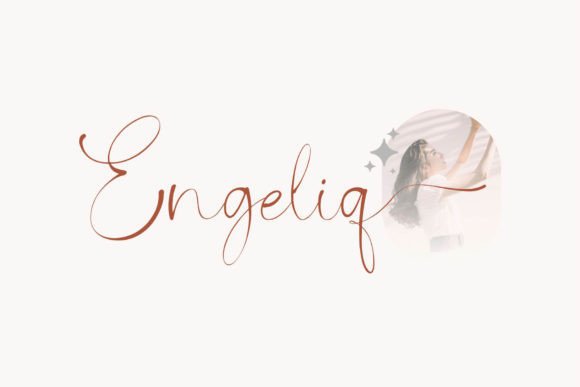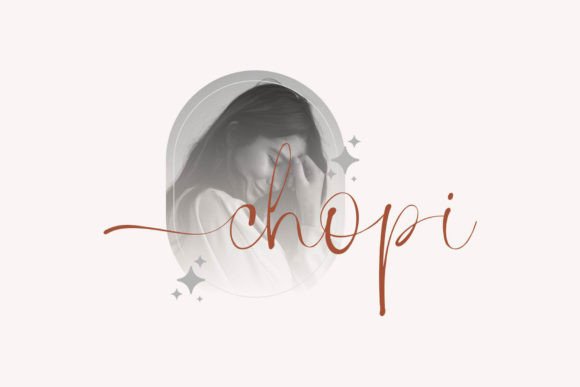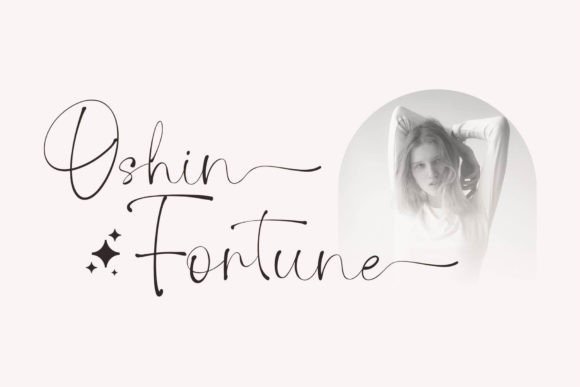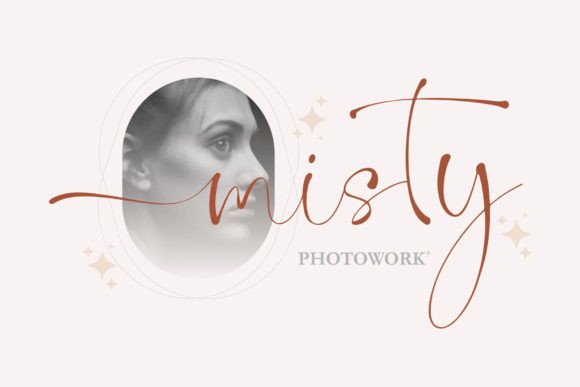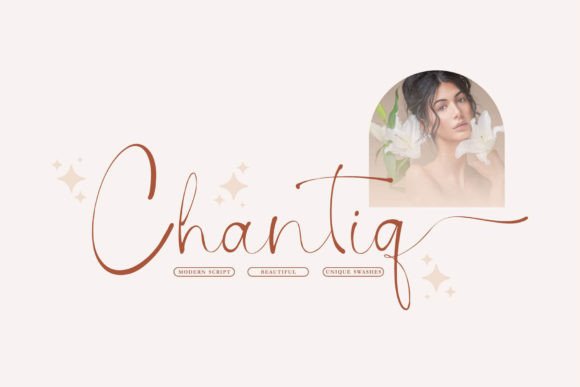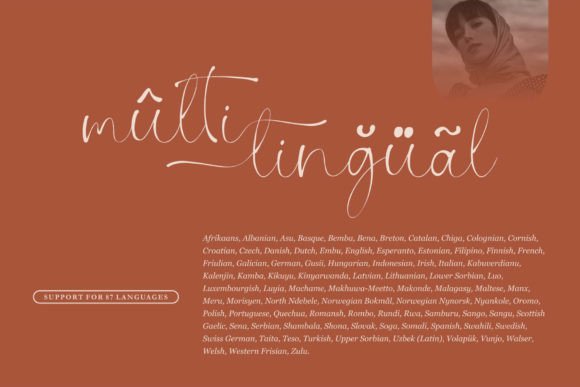
Introducing Gispon Font: The Ultimate Romantic Script Font for Designers
Are you tired of using the same old fonts for your designs? Look no further! Gispon Font is a romantic and unique script font that is sure to take your creative ideas to the next level. With its elegant and sophisticated design, Gispon Font is perfect for a wide range of design projects, from wedding designs and romantic events to headlines, billboards, magazines, websites, titles, posters, branding, T-shirts, logos, and more.
A Font that Exudes Romance and Elegance
Gispon Font is a masterfully designed script font that exudes romance and elegance. Its unique and flowing lines make it perfect for designs that require a touch of sophistication and glamour. Whether you’re creating a wedding invitation, a romantic poster, or a luxury brand logo, Gispon Font is sure to impress. Its romantic and whimsical feel will add a touch of magic to any design, making it a must-have font for designers and crafters.
One of the best things about Gispon Font is its versatility. It can be used for a wide range of design projects, including:
- Wedding designs: Create beautiful wedding invitations, save-the-date cards, and wedding stationery with Gispon Font.
- Romantic events: Use Gispon Font to create posters, flyers, and social media graphics for romantic events, such as Valentine’s Day or anniversary celebrations.
- Headlines and billboards: Make a statement with Gispon Font on your headlines and billboards.
- Magazines and websites: Add a touch of elegance to your magazine or website with Gispon Font.
- Logos and branding: Use Gispon Font to create a unique and memorable logo for your brand.
- T-shirts and merchandise: Create stunning T-shirts, mugs, and other merchandise with Gispon Font.
- Access a wide range of glyphs and swashes to add variety to your designs.
- Easily customize your designs to fit your brand’s style and aesthetic.
Why Choose Gispon Font?
So why choose Gispon Font over other script fonts? Here are just a few reasons:
- Unique and romantic design: Gispon Font has a unique and romantic design that will set your designs apart from the rest.
- Versatility: Gispon Font can be used for a wide range of design projects, making it a great addition to any design library.
- High-quality design: Gispon Font is designed to the highest standards, ensuring that your designs look professional and polished.
In conclusion, Gispon Font is a romantic and unique script font that is perfect for designers and crafters looking to add a touch of elegance and sophistication to their designs. With its versatility, ease of use, and high-quality design, Gispon Font is a must-have font for any design library. Whether you’re creating wedding designs, romantic events, headlines, billboards, magazines, websites, titles, posters, branding, T-shirts, logos, or more, Gispon Font is sure to impress. So why wait? Download Gispon Font today and take your designs to the next level!